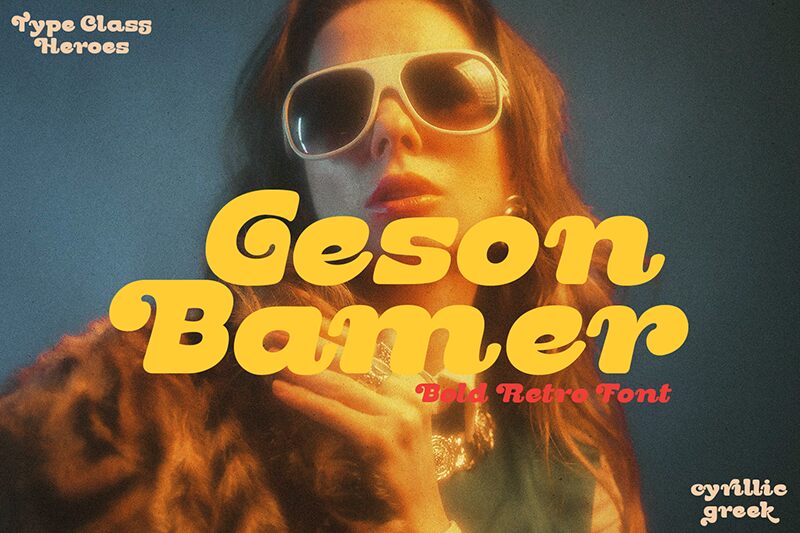
Geson Bamer Demo
Geson Bamer font by TypeClassHeroes is a display typeface with bold and expanded characters. It combines a modern aesthetic with retro influence, exhibiting smooth transitions and geometric shapes. This rounded-font has character stems that are even thicker than the counters/holes found in the font which prominently stand out thanks to their unique designs.